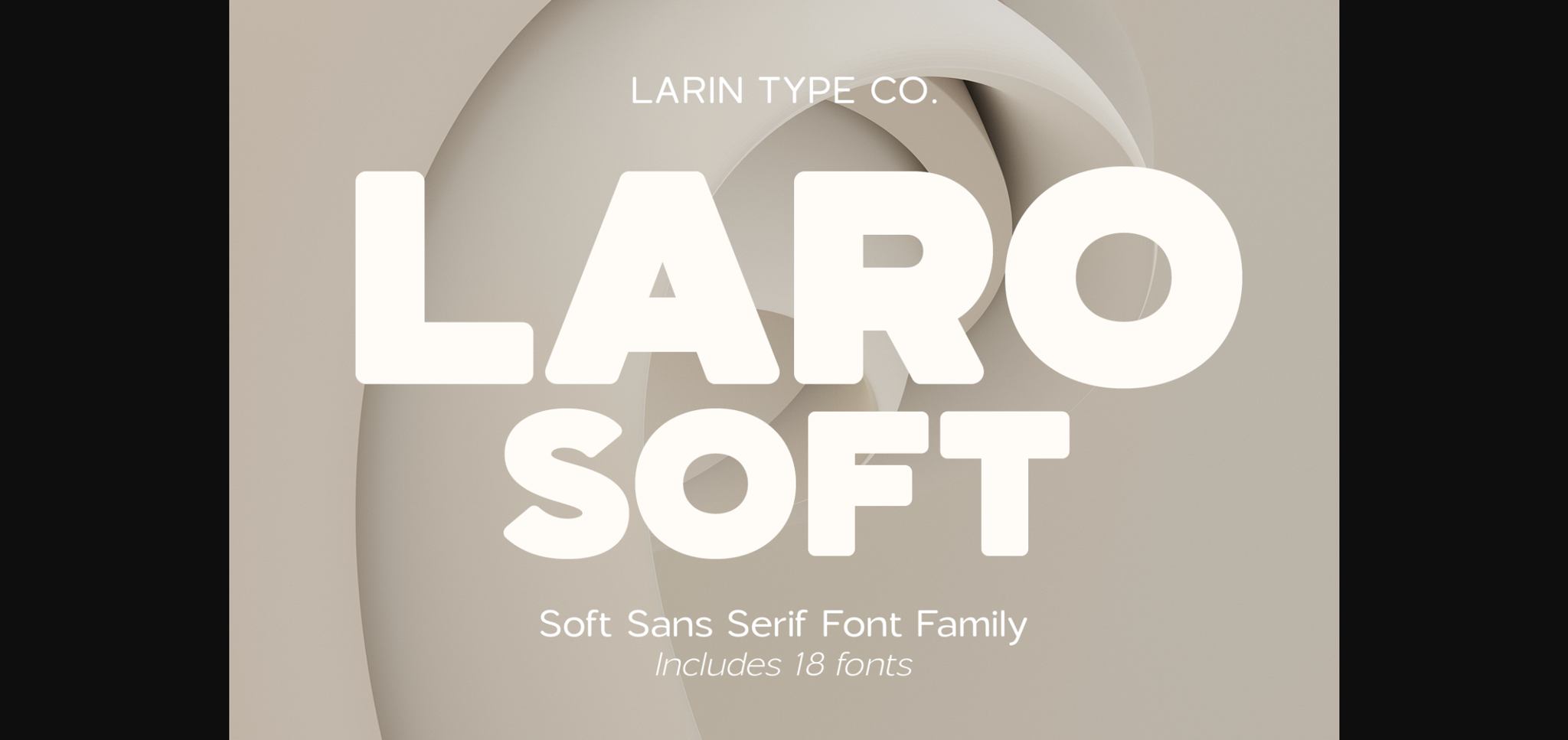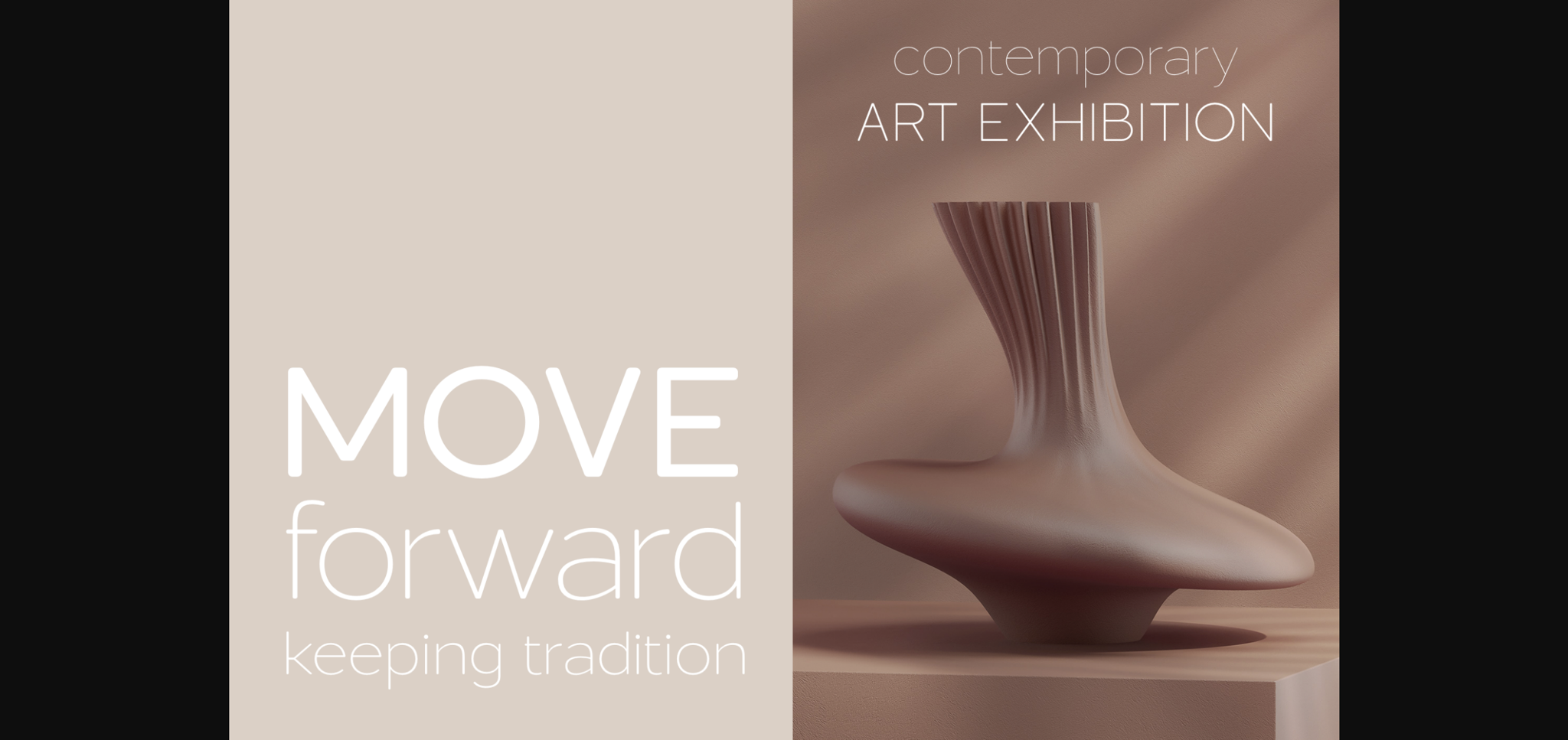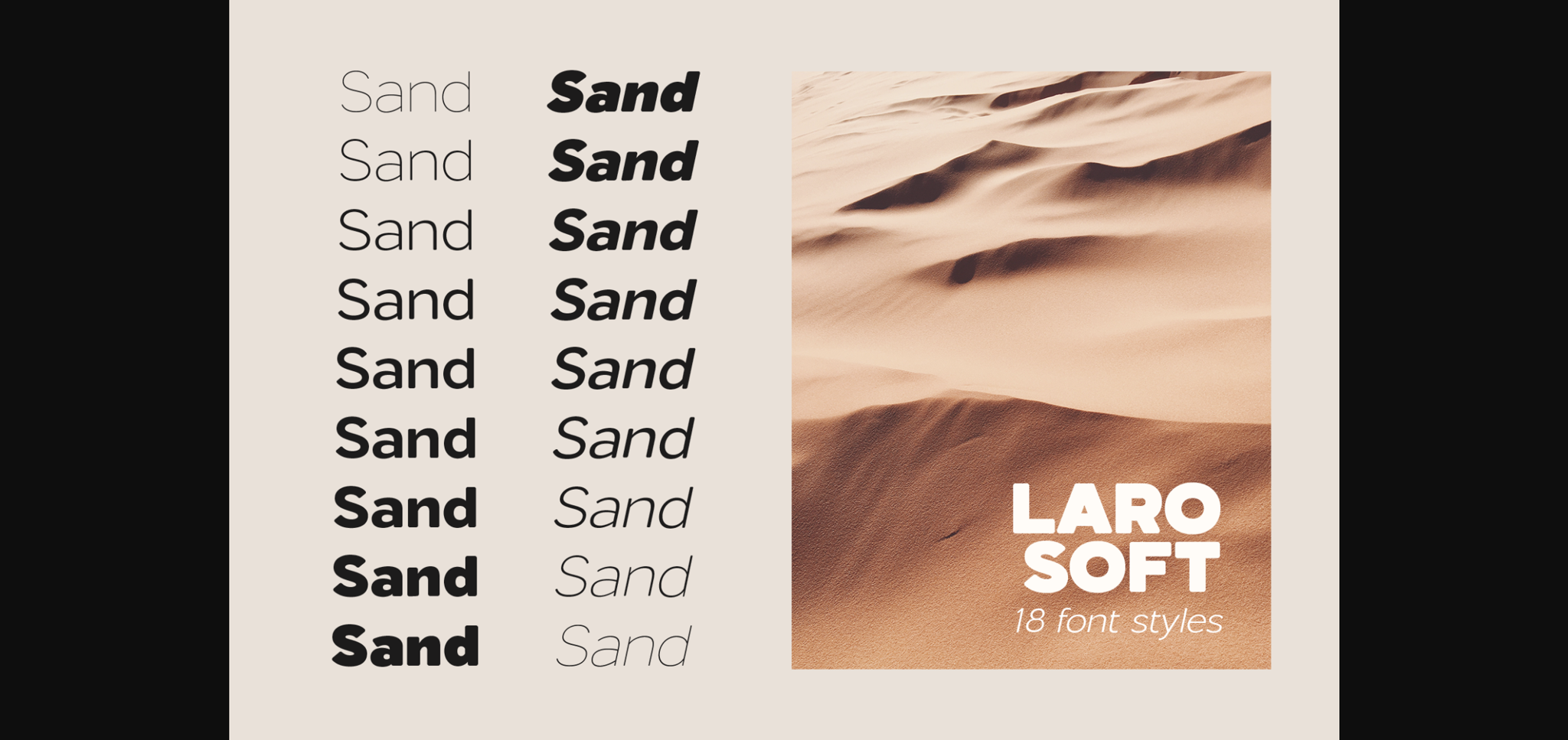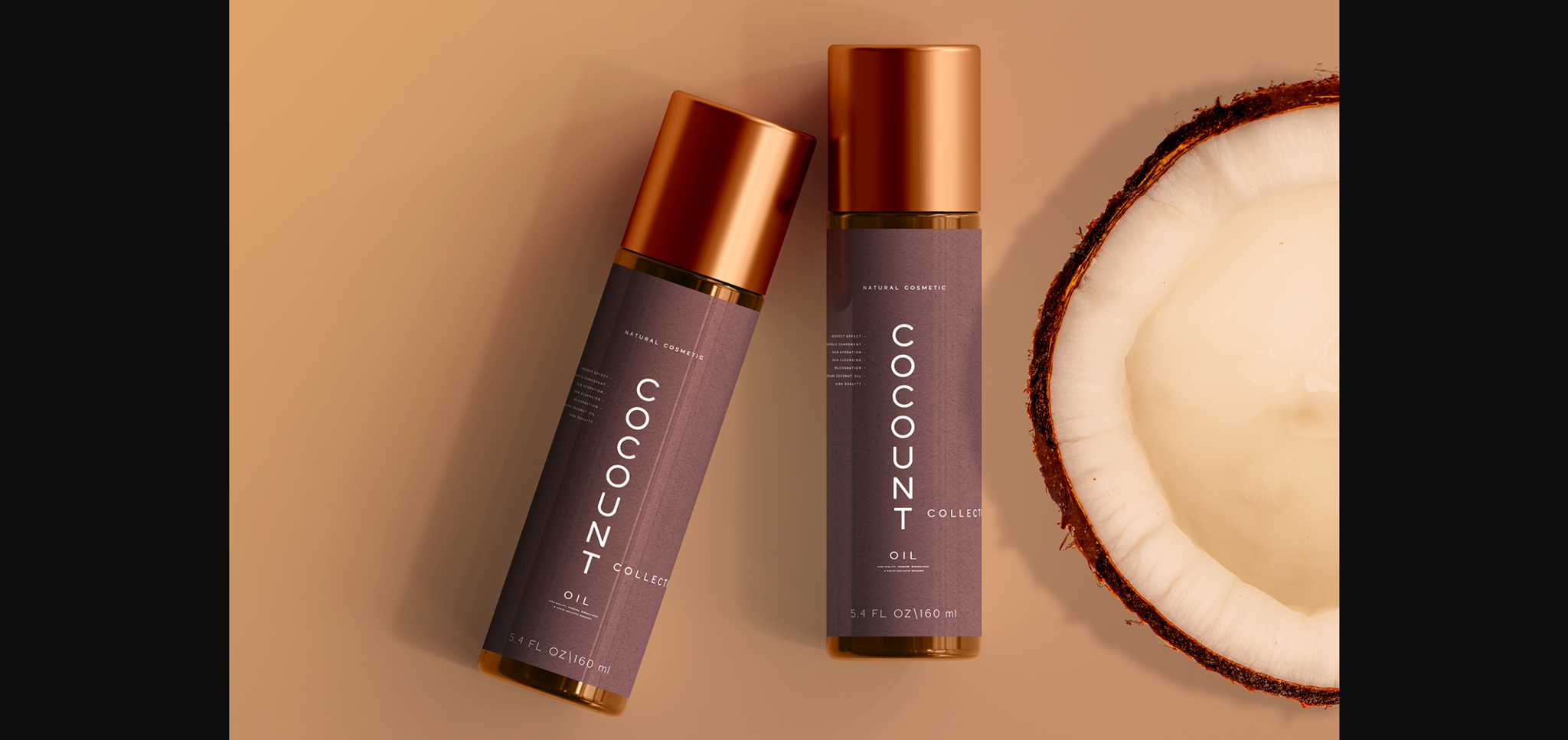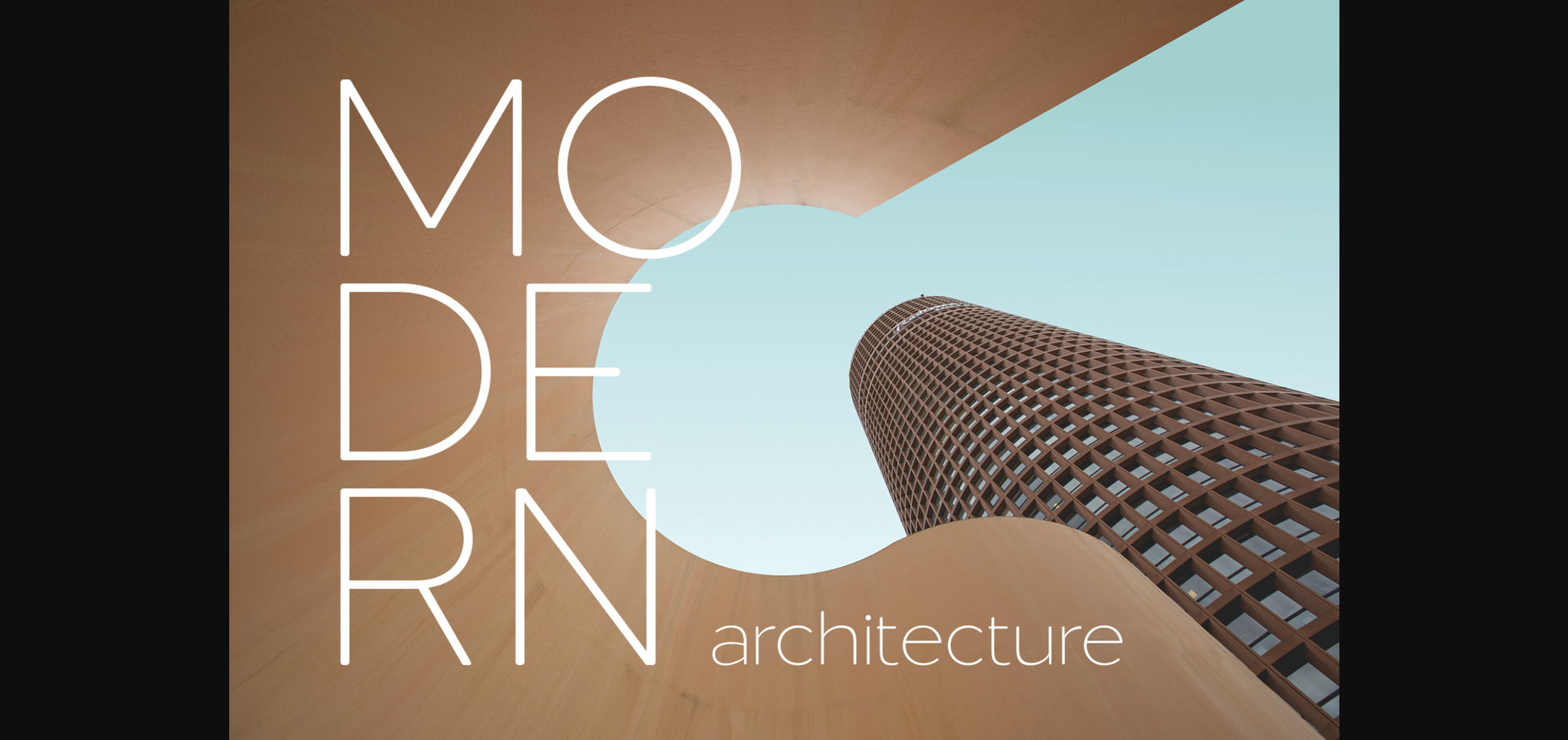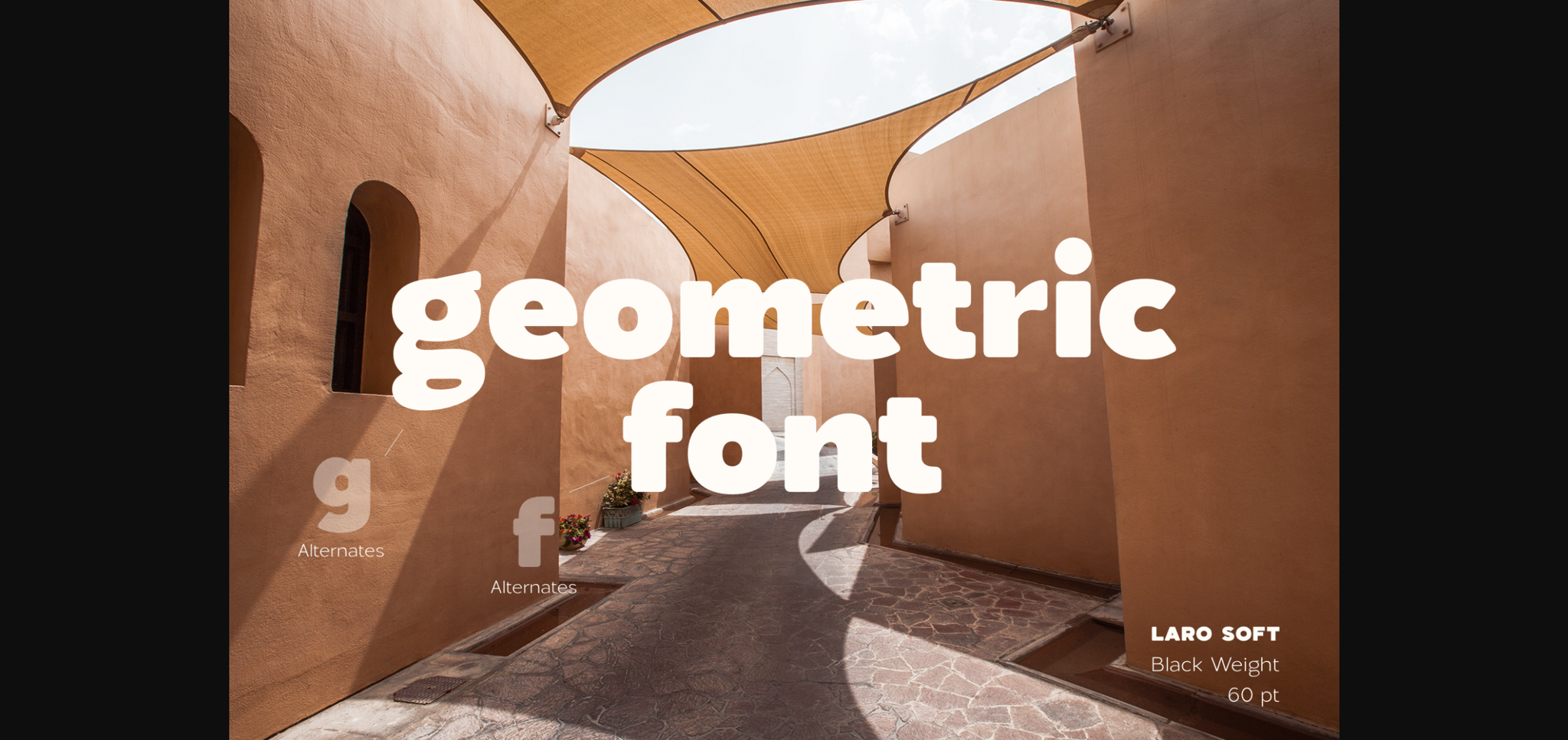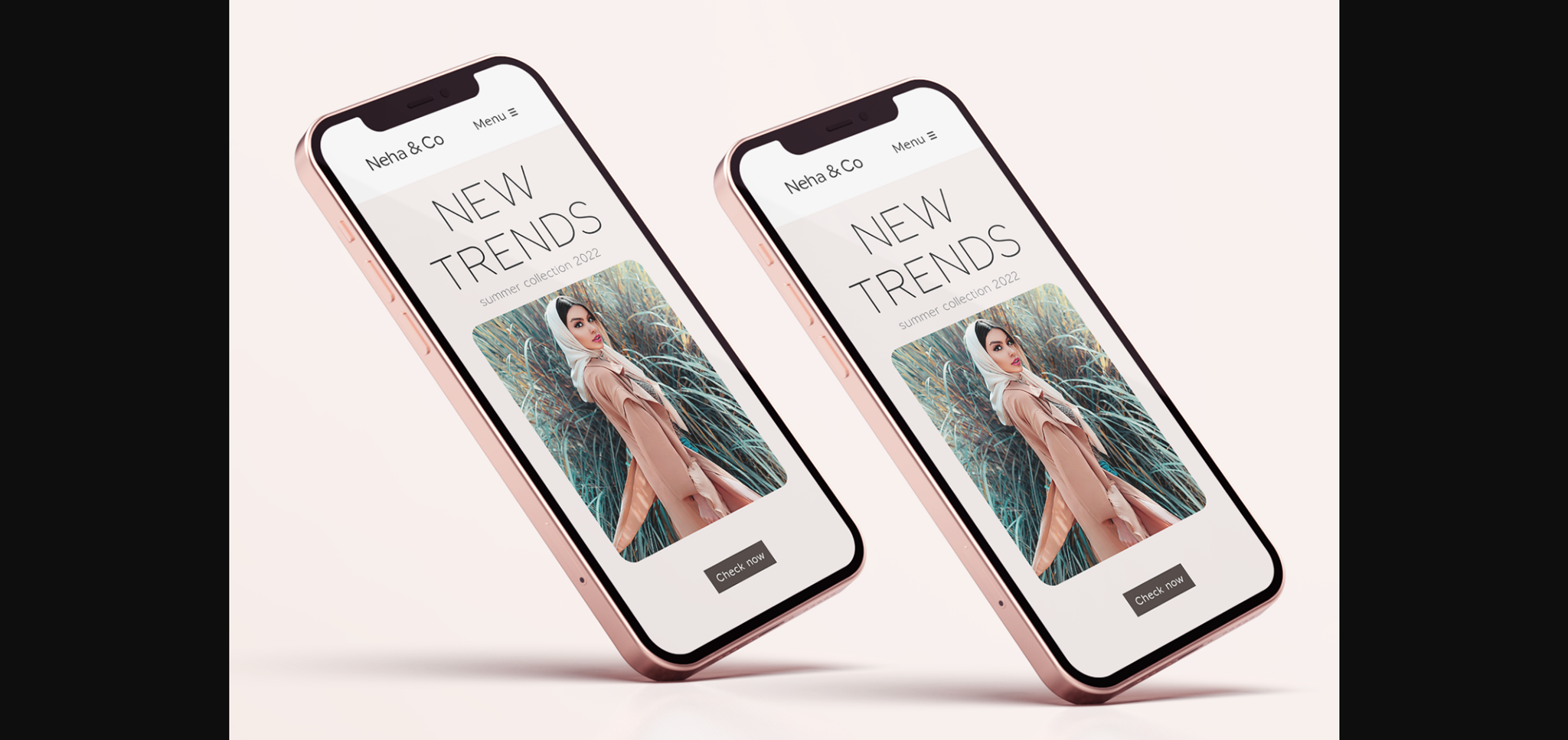
Laro Soft Font
About Laro Soft Font
Laro Soft is a modern sans-serif font that includes nine weights from thin to black and nine weights in Italic style.
This multi-purpose font captures a huge range for the design and creation of your project. Laro will perfectly cope with a variety of tasks and will always look stylish and modern. With it, you can create logos, labels, advertising, packaging, branding, book covers and magazines, cosmetics, banners, posters, headings, descriptions, and much more.